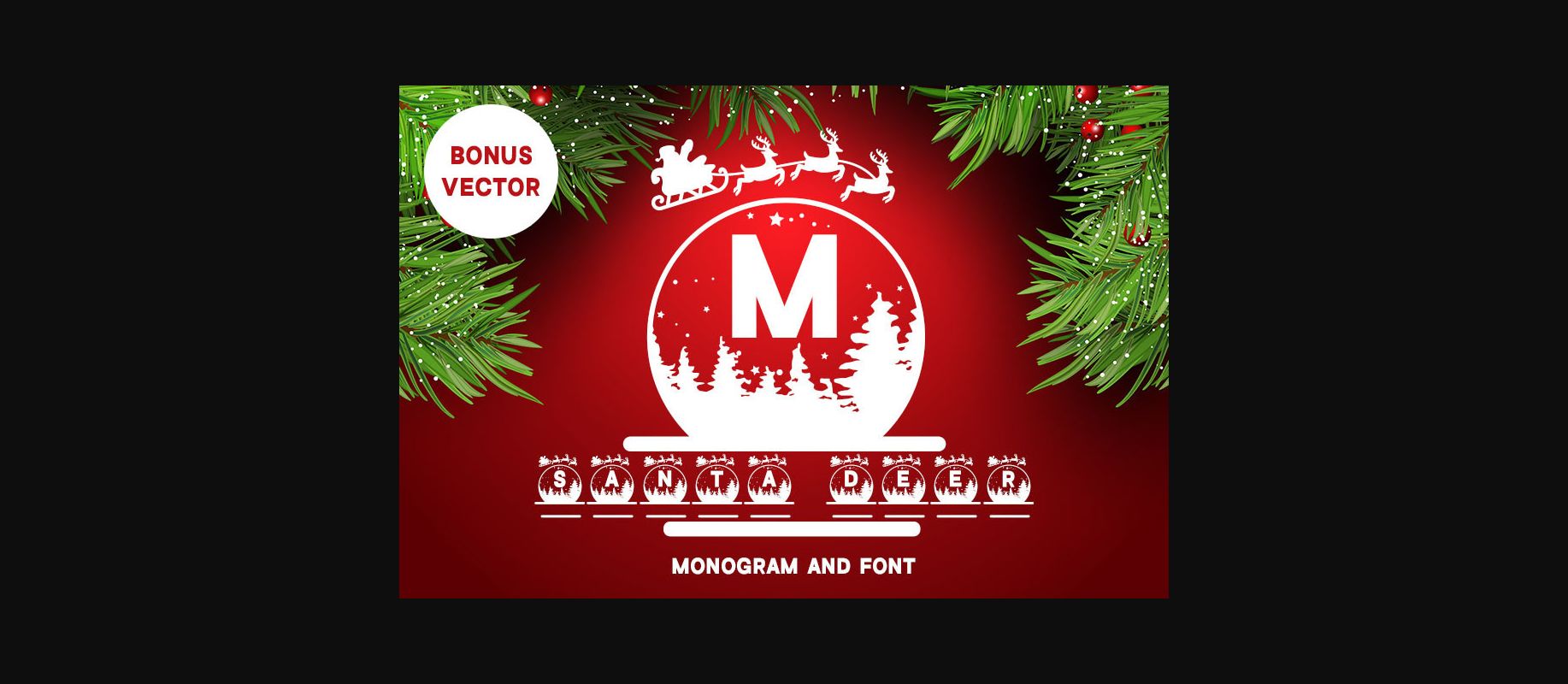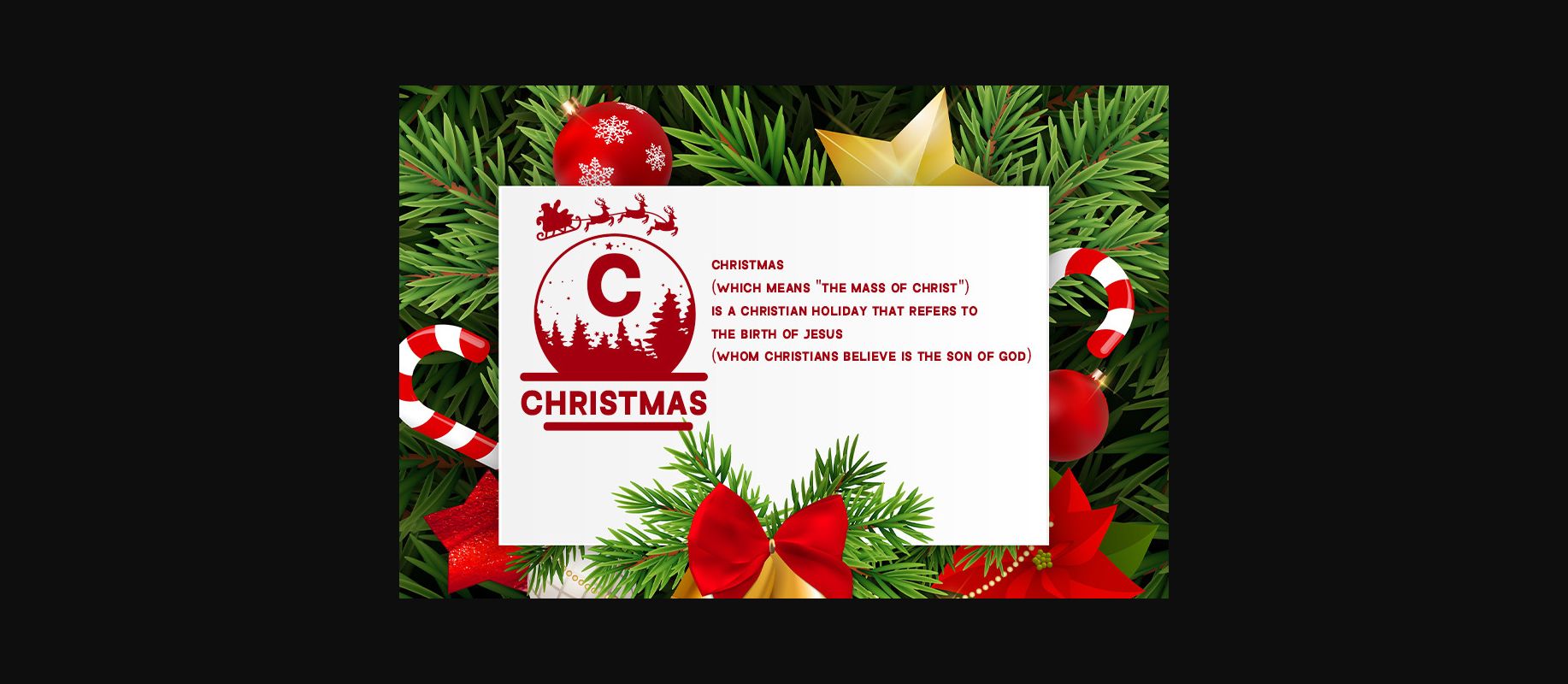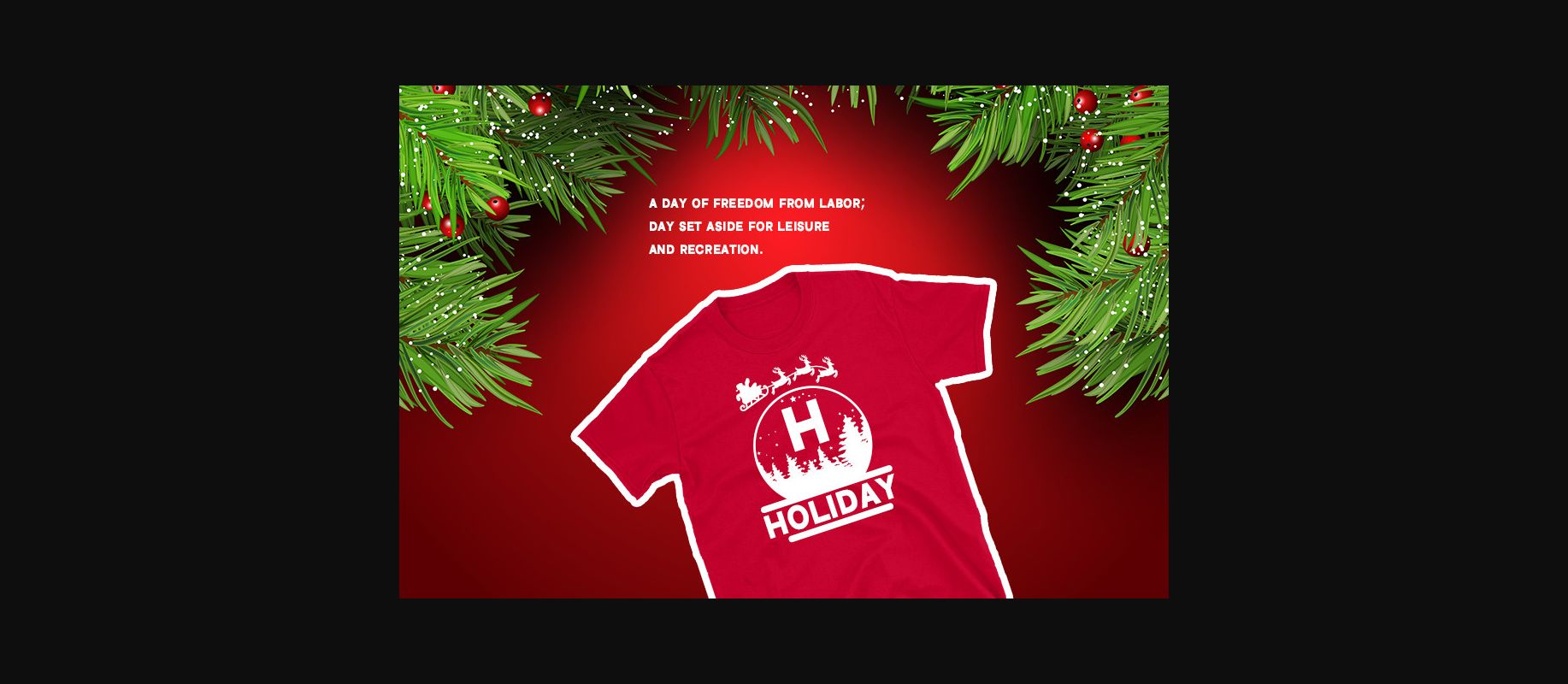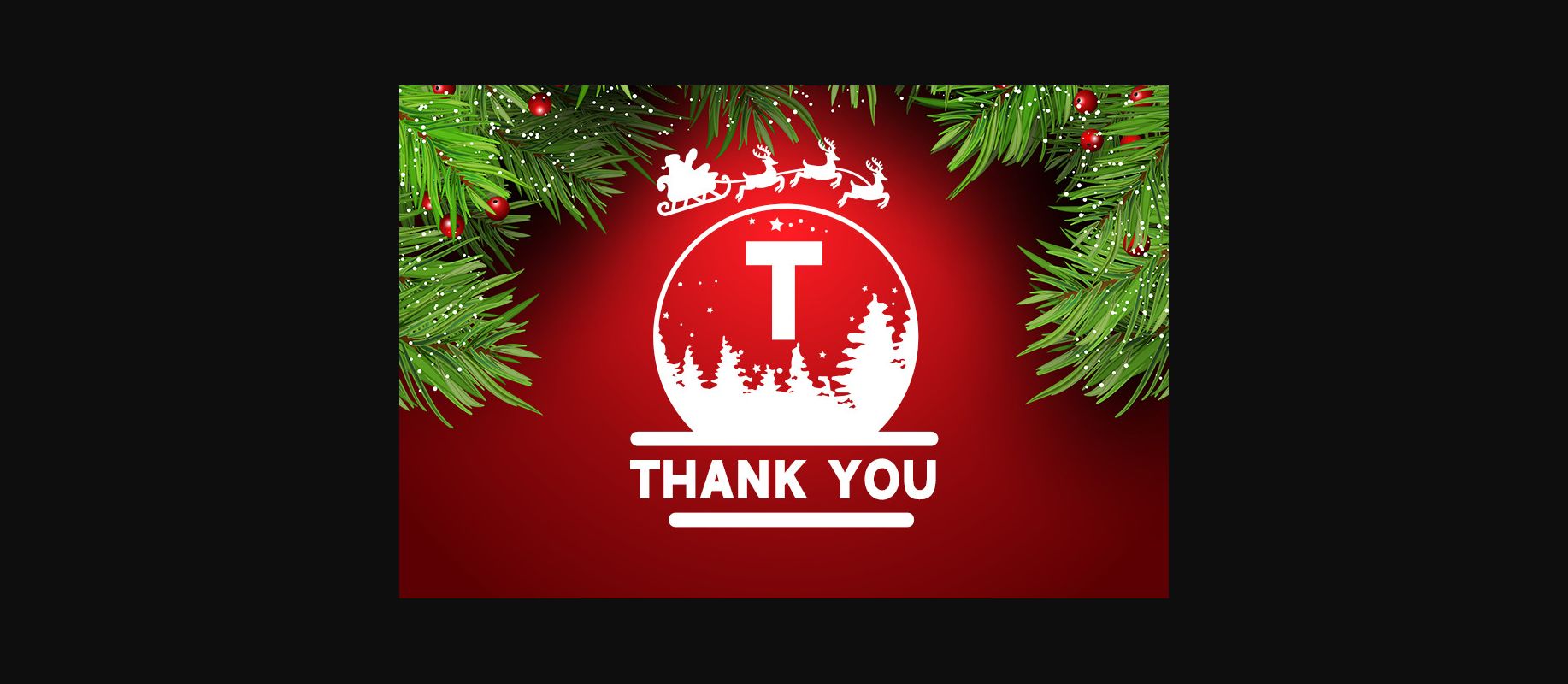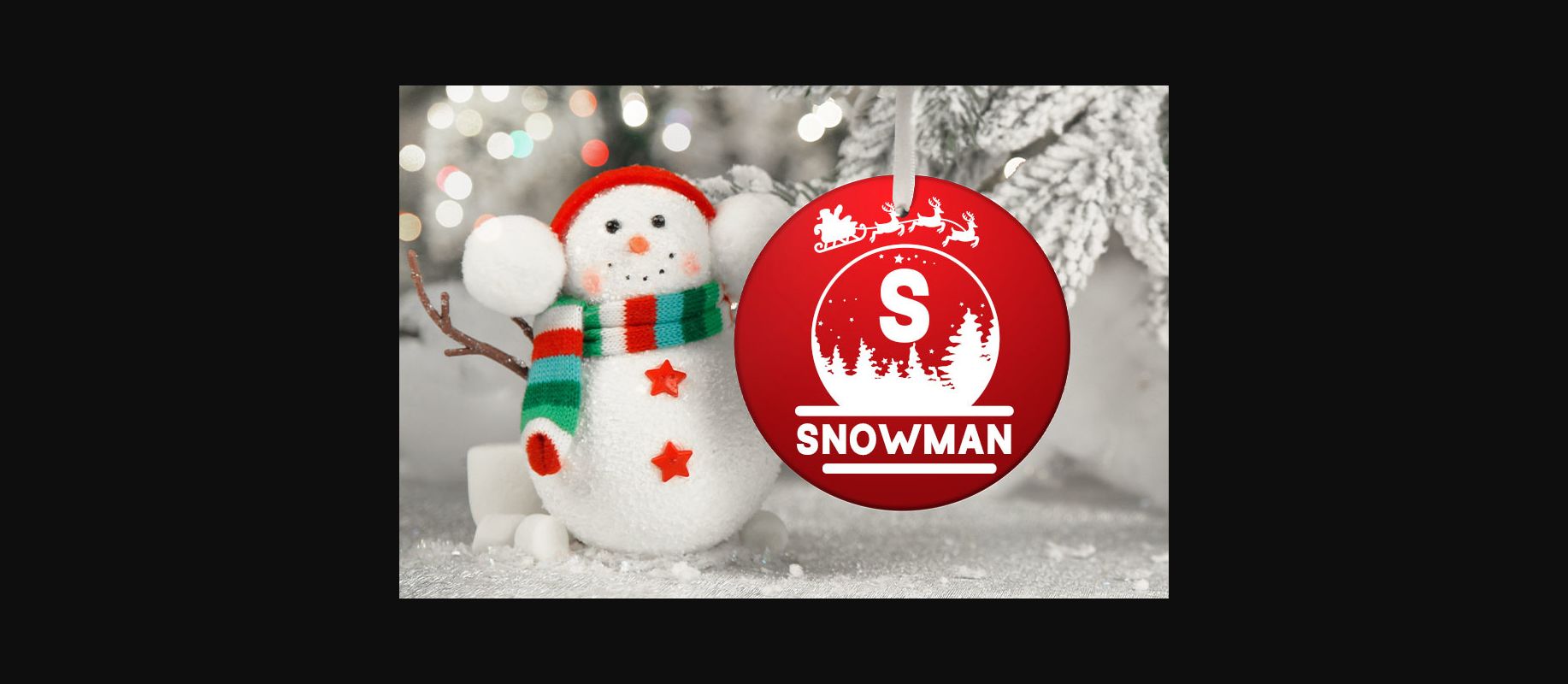
Monogram Santa Deer Font
About Monogram Santa Deer Font
Monogram Santa Deer is a highly detailed, unique and interestingly designed decorative font. Whether you use it for Christmas related designs, children games or just any creation that requires a lovely touch, this font will be an amazing choice.